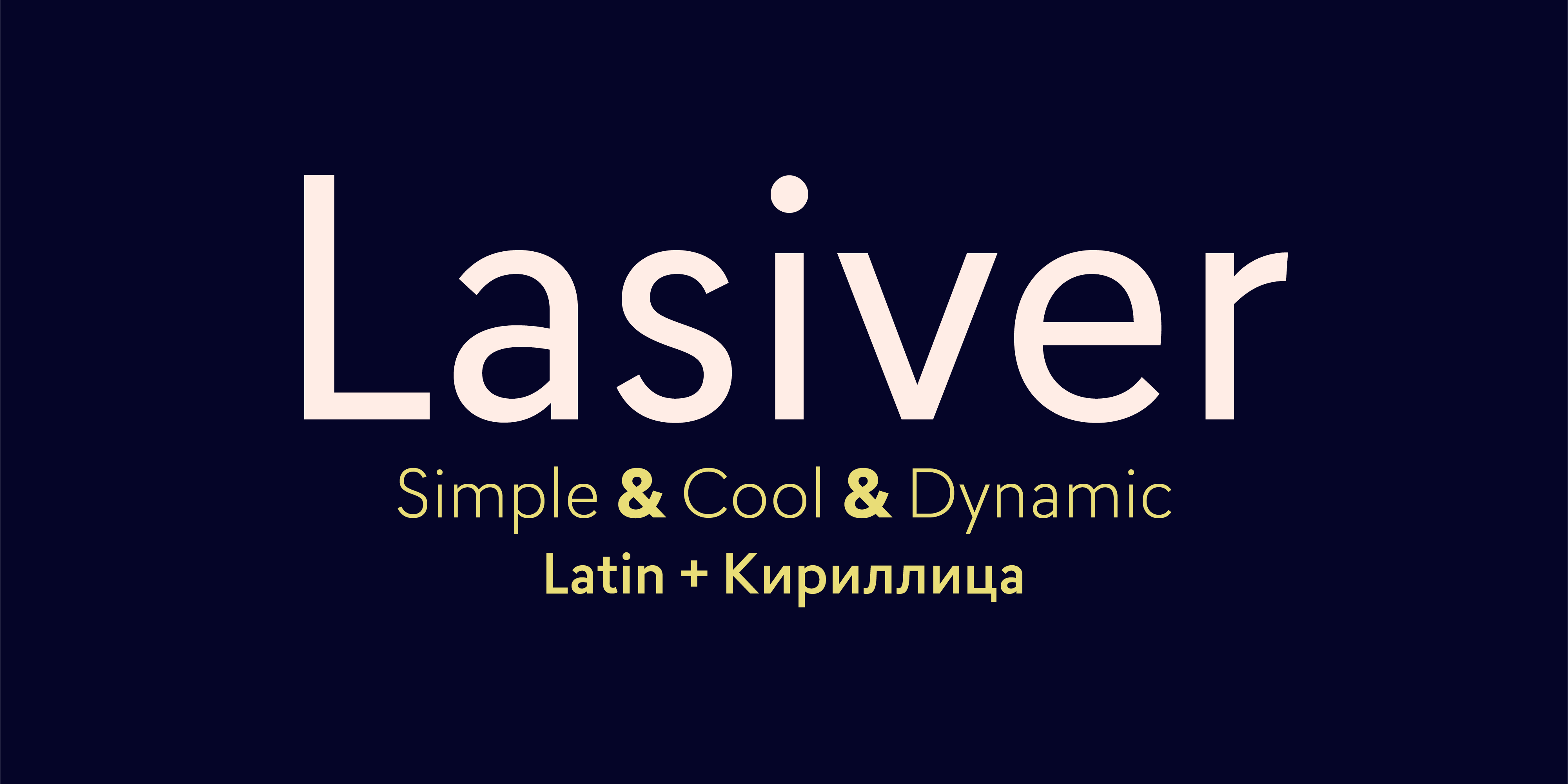
Lasiver Font Free Download is a clean and modern sans-serif typeface that blends geometric precision with contemporary elegance. Its smooth lines, balanced proportions, and minimalist style make it an excellent choice for branding, corporate identity, editorial layouts, websites, and marketing materials that require a sleek and professional look.
The font’s strong readability and versatile design ensure it performs beautifully across both print and digital media, whether used for large headlines or detailed body text. Lasiver’s modern simplicity allows it to adapt effortlessly to a wide range of creative and professional applications.
Lasiver is a must-have addition to any designer’s toolkit, offering a refined, contemporary aesthetic ideal for enhancing the clarity and sophistication of creative projects.